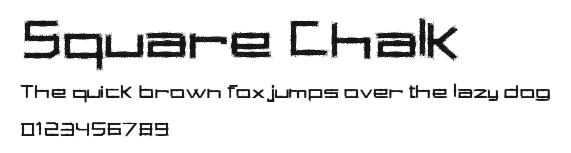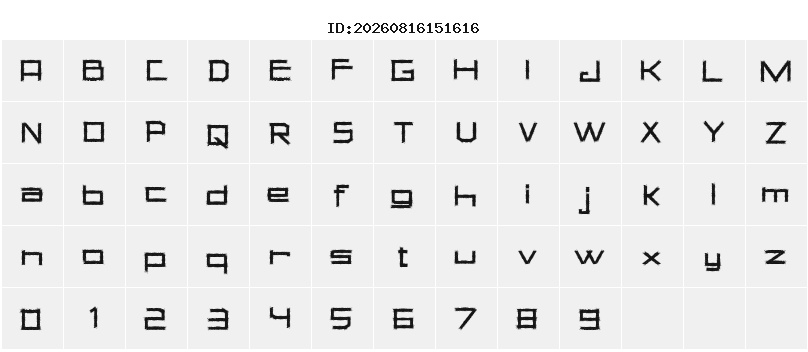
• Font Name: Square Chalk
• Full Font Name: Square Chalk
• Designer: Galdino Otten
About Square Chalk.ttf
Square Chalk.ttf is a modern, elegant sans-serif font designed for ultimate readability and visual harmony. Perfect for branding, headlines, web design, and print materials.